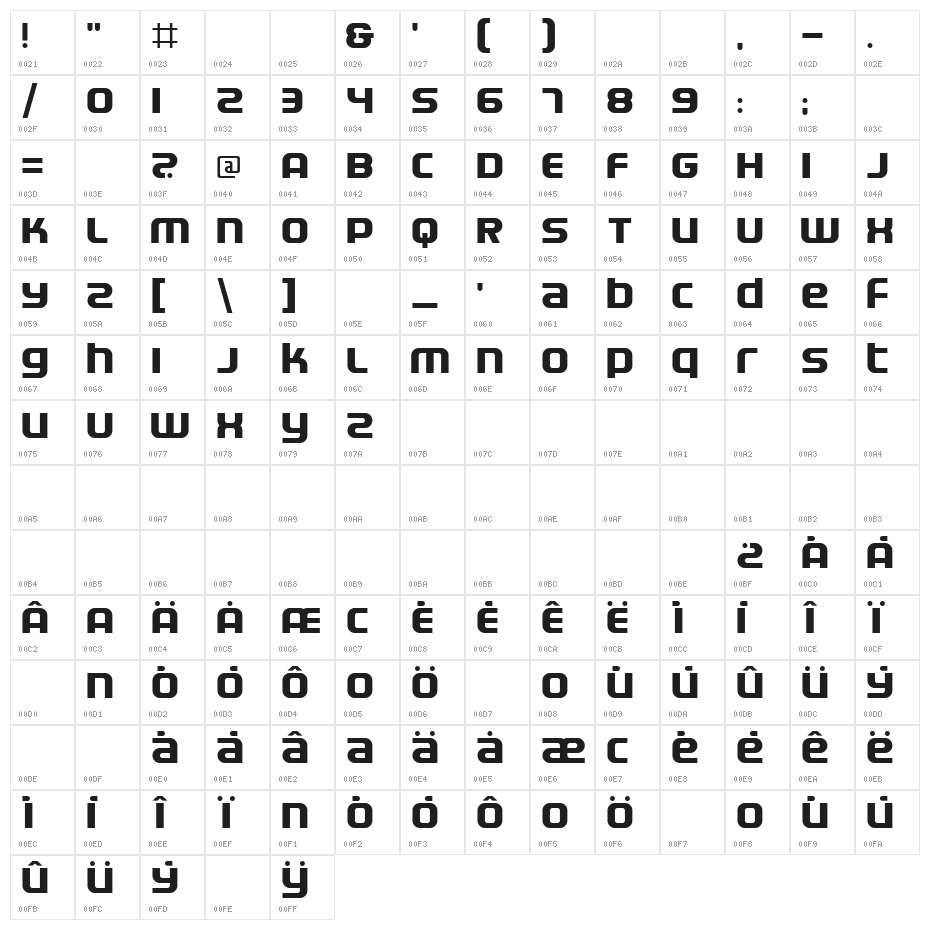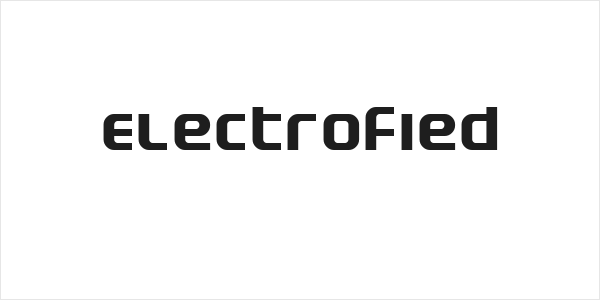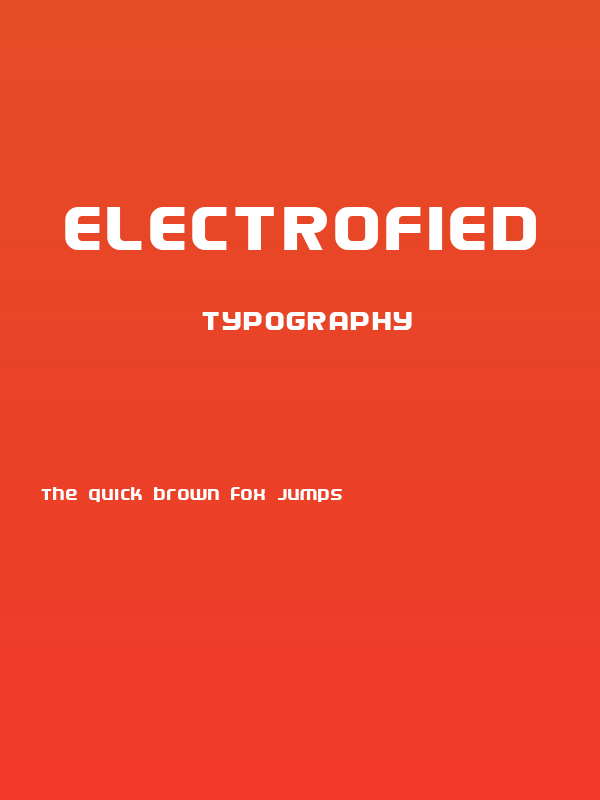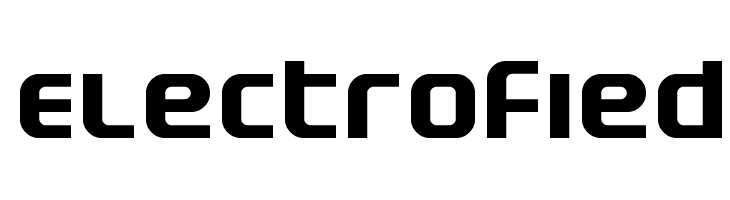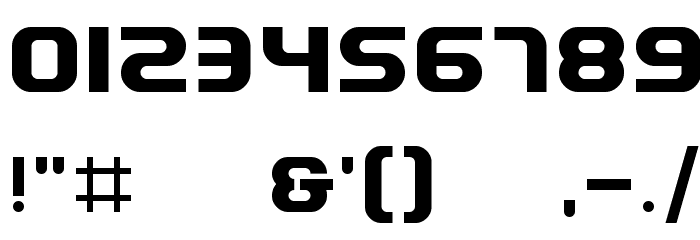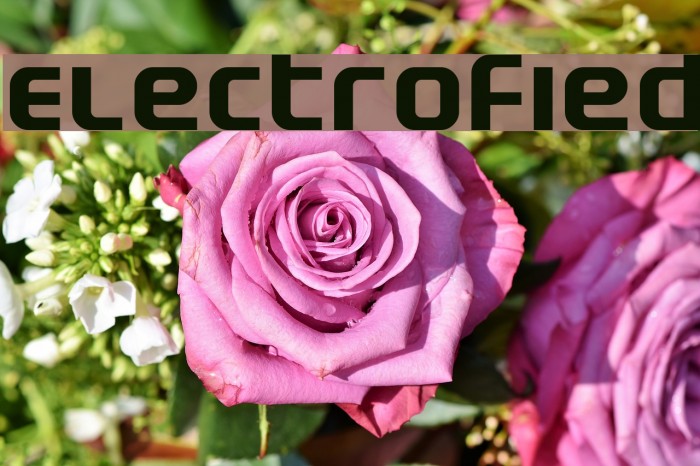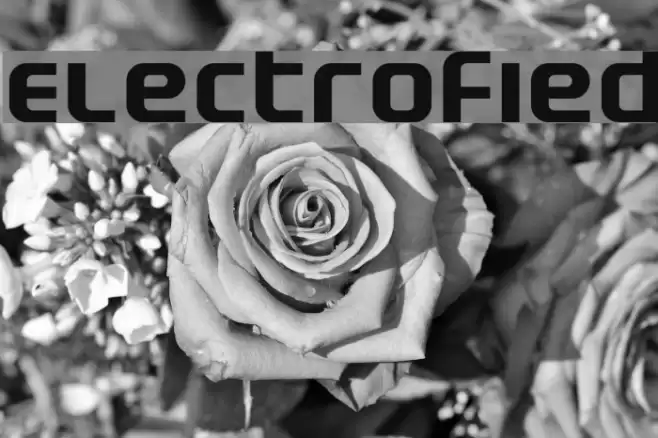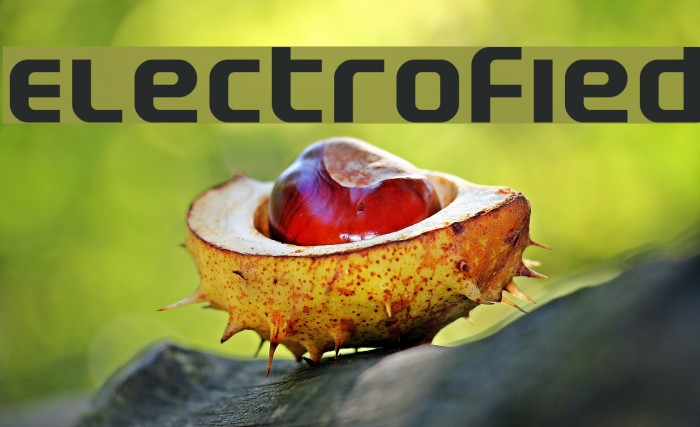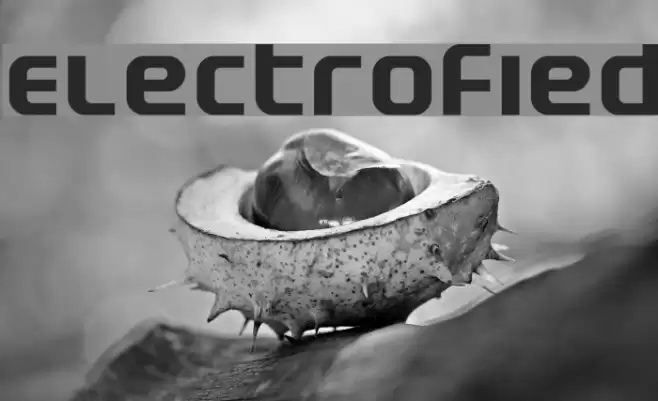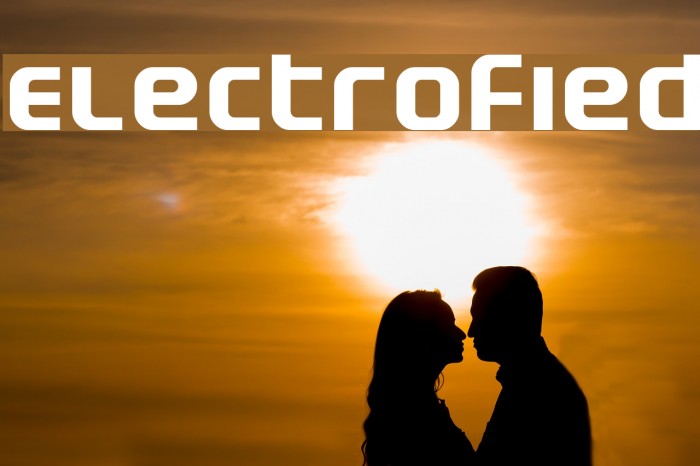
Electrofied Font
| Cas d'utilisation | Headlines, Logos, Digital Interfaces |
| Projets proposés | Ideal for technology branding, video game titles, sci-fi posters, and modern digital interfaces. |